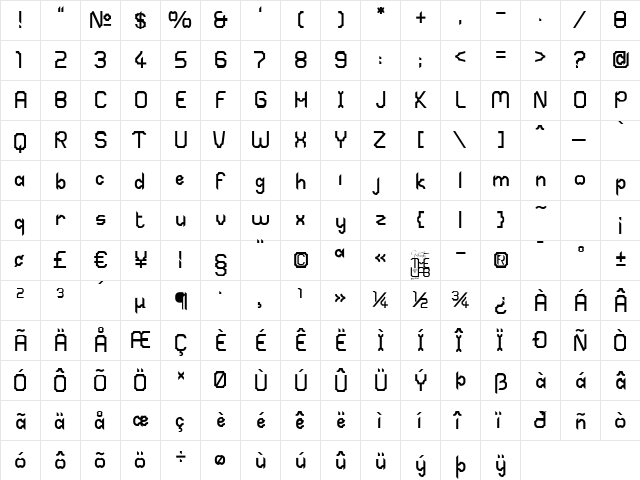
Sabril Regular
Design Context for Sabril Typeface
Sabril is a composed and adaptable typeface that performs quietly and consistently across a wide range of design contexts.